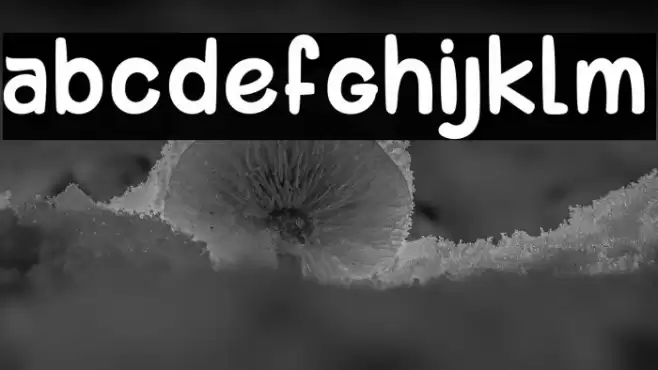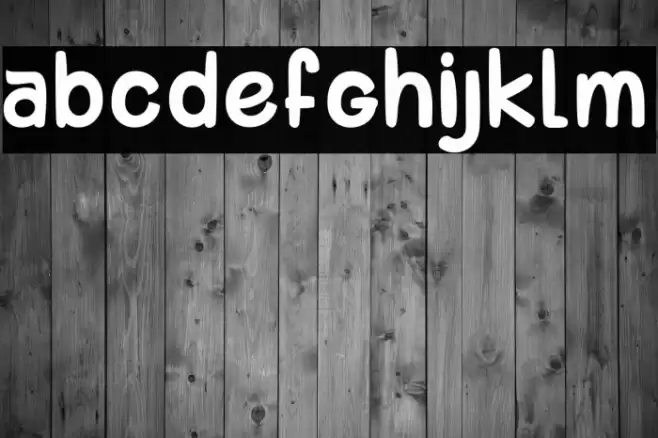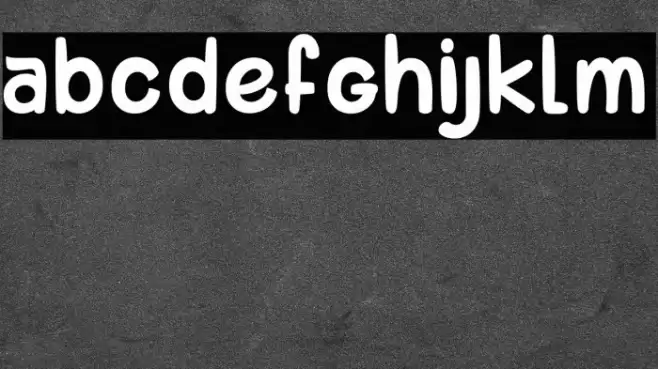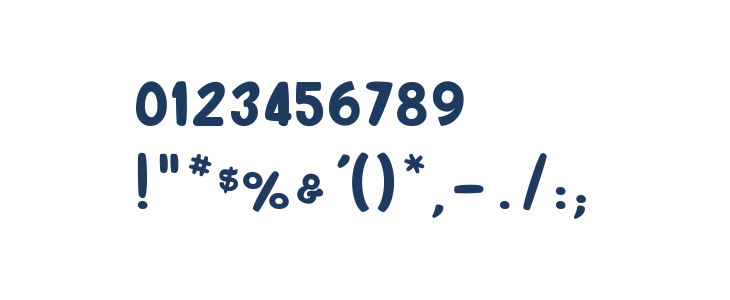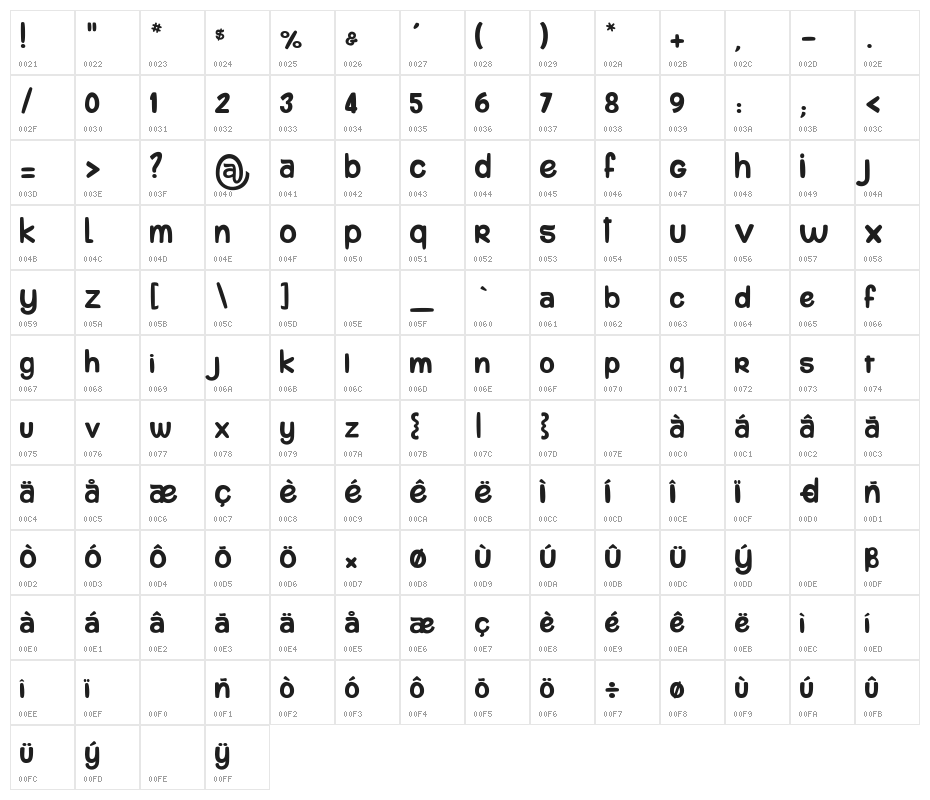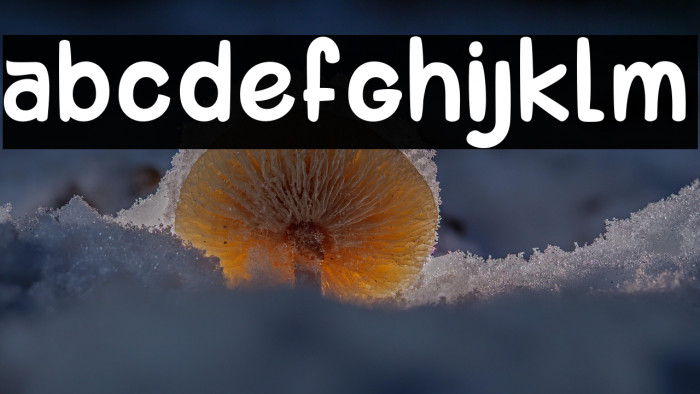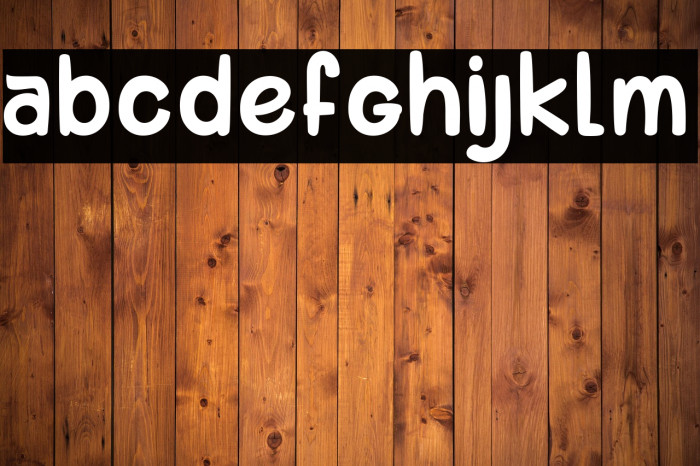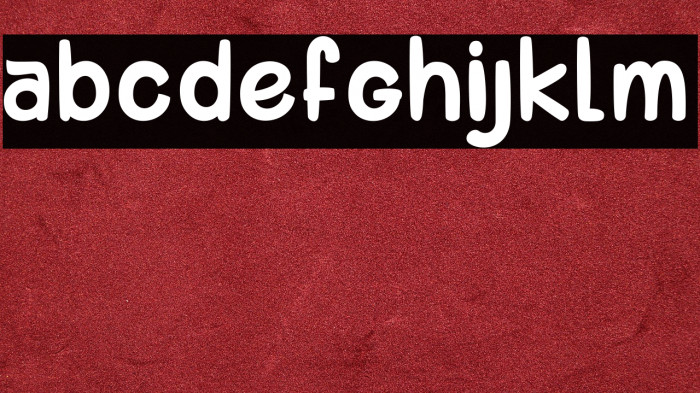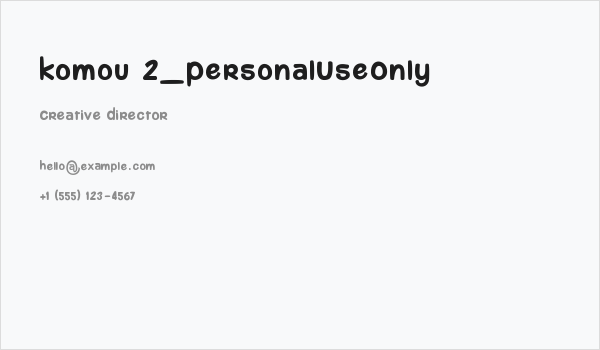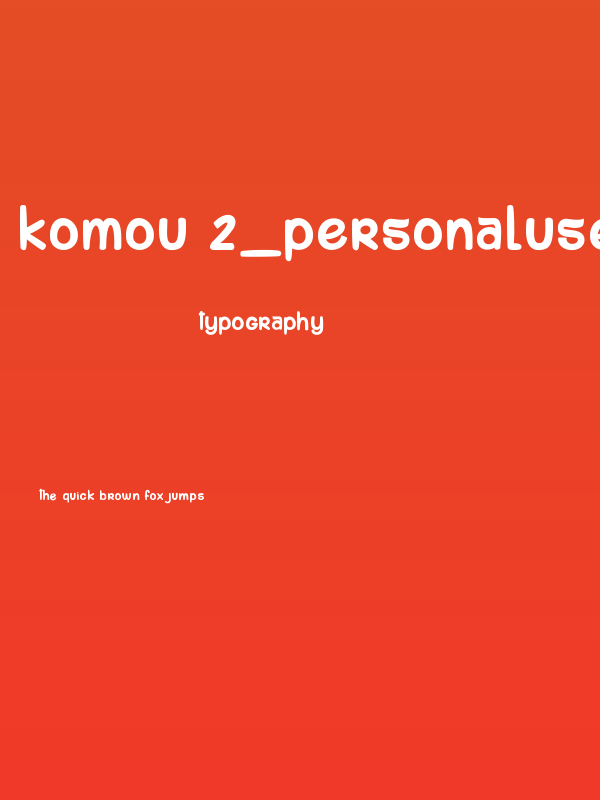
komou 2_PersonalUseOnly Font
komou 2_PersonalUseOnly Description
This playful and rounded font features a bold, friendly appearance with smooth curves and a slightly whimsical style. The characters are evenly spaced, creating a harmonious and approachable look. The lowercase letters are consistent in height, while the uppercase letters maintain a uniform width, contributing to the font's balanced and cohesive design. The numerals and special characters follow the same rounded and bold aesthetic, ensuring consistency across all elements. This font's unique style makes it suitable for projects that require a touch of fun and creativity.
A bold, rounded, and playful font with a friendly and whimsical style from Uncategorized fonts.
- Font: komou 2_PersonalUseOnly
- Proposed Projects: Ideal for children's books, playful branding, casual invitations, and creative posters.
- Overall Style: Playful